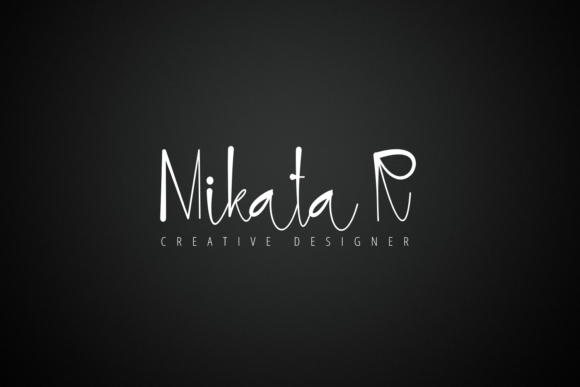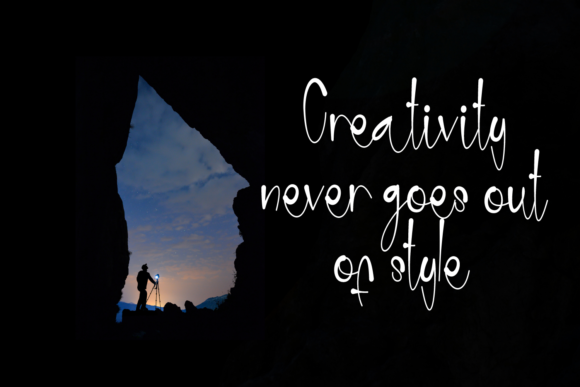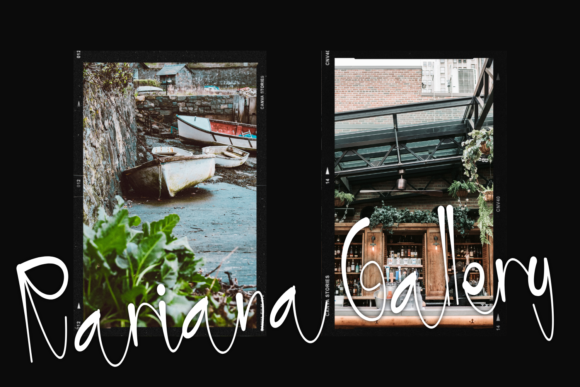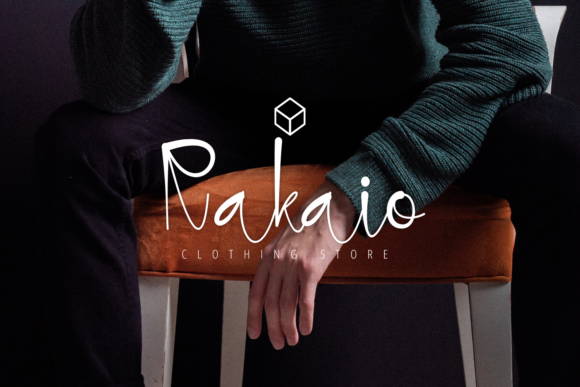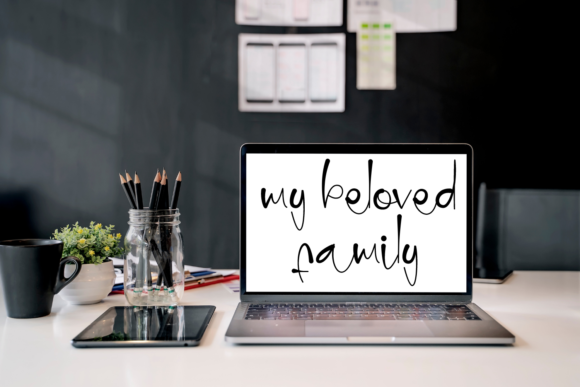
About Photographer Font
Photographer is a magical script font carefully created with a touch of elegance. Whether you’re looking for fonts for Instagram or calligraphy scripts for DIY projects, this font will turn any creative idea into a true piece of art!